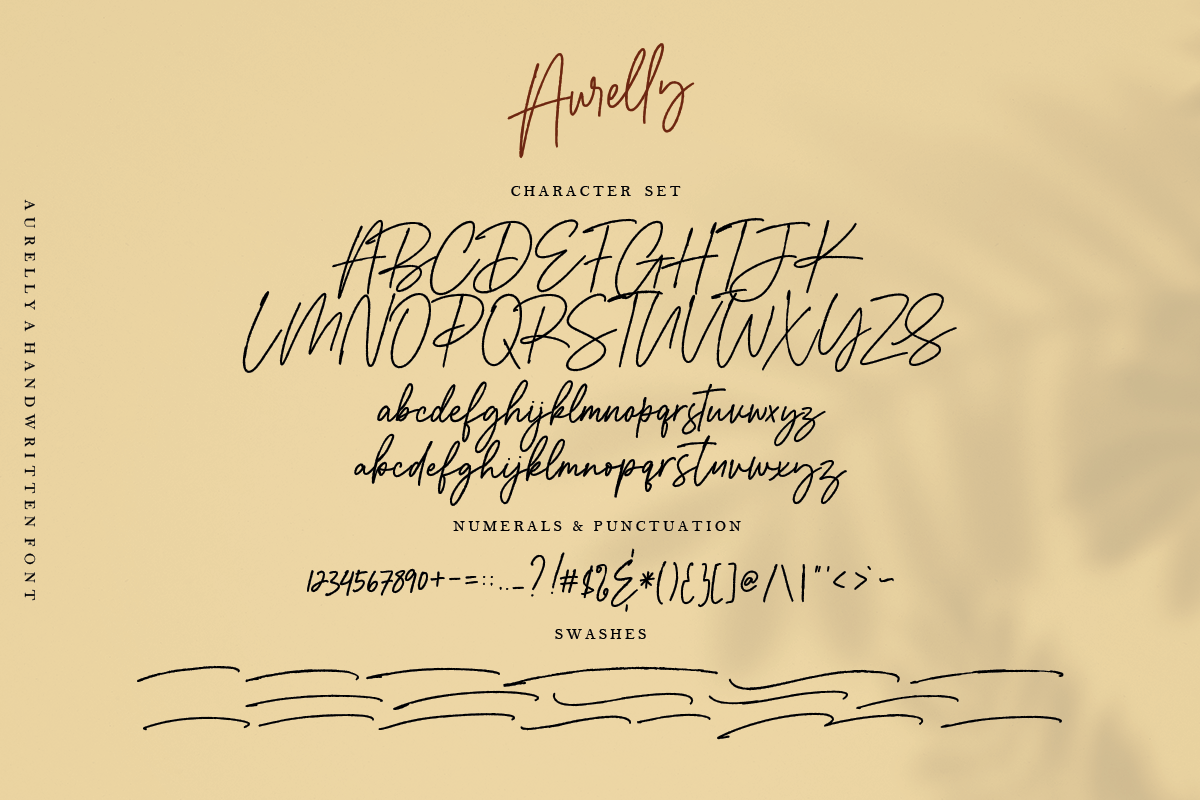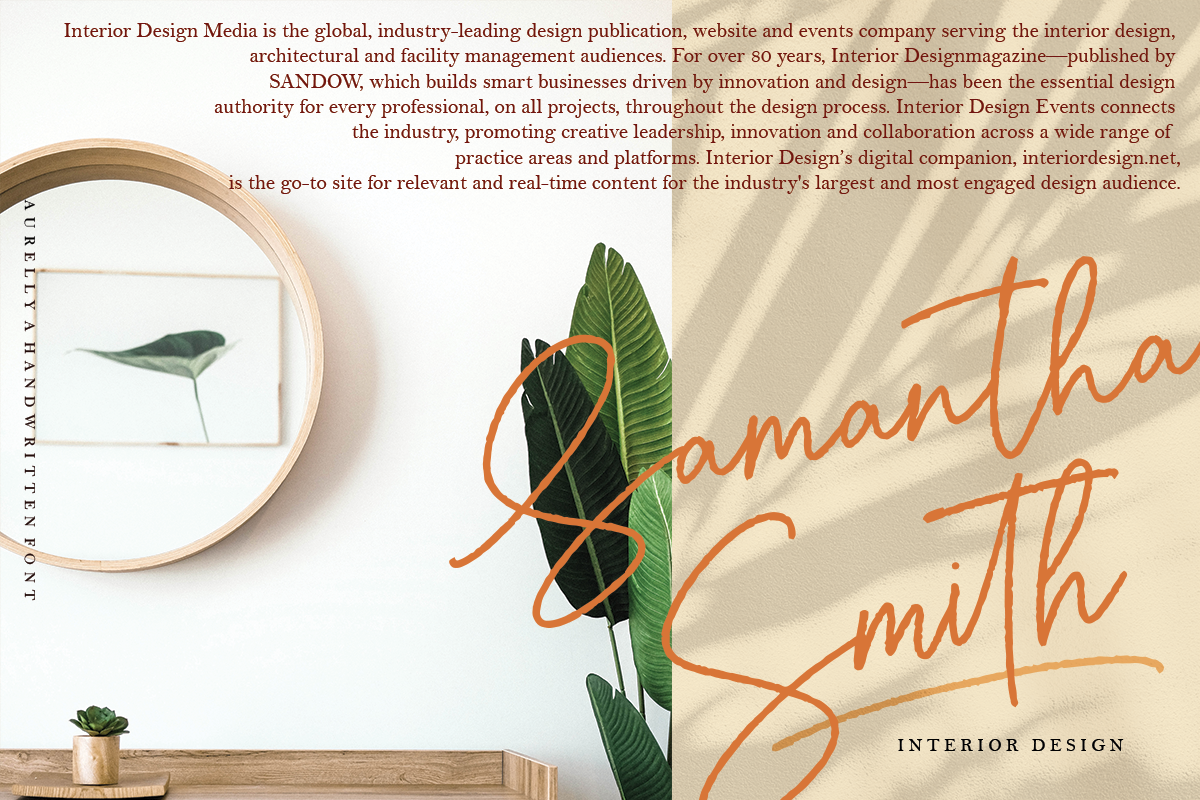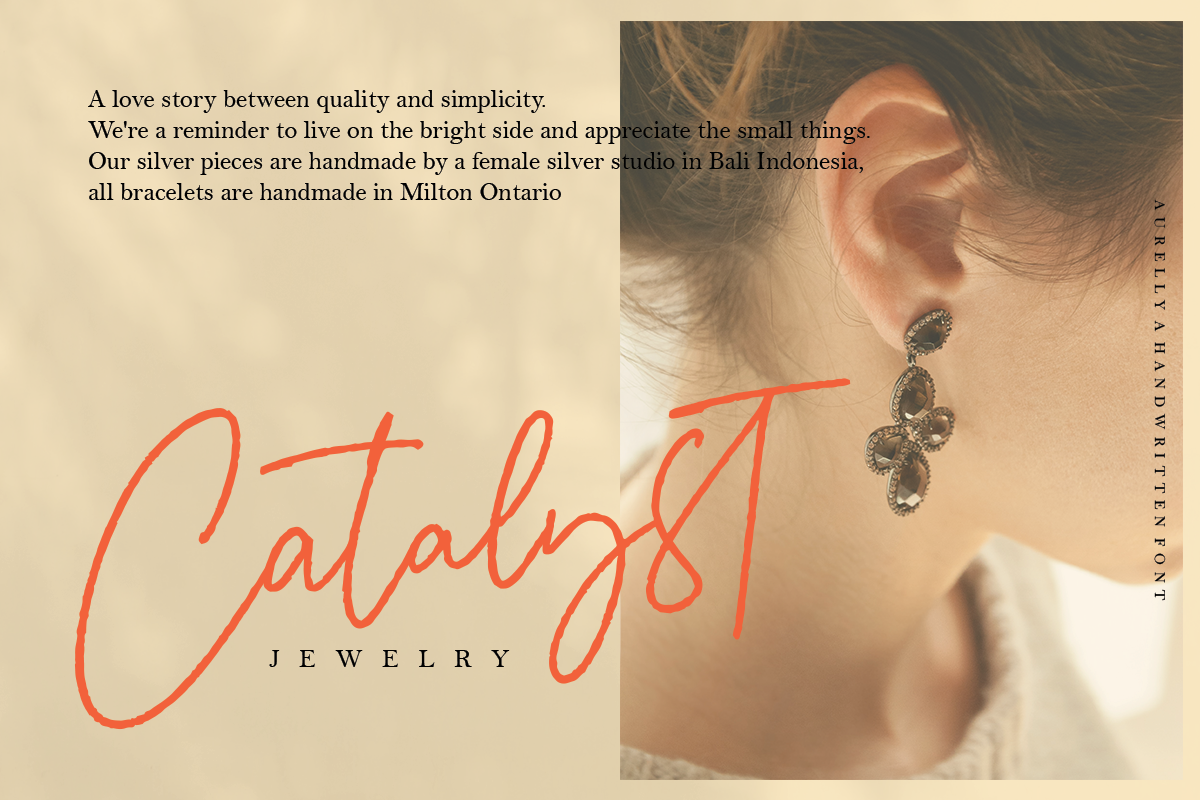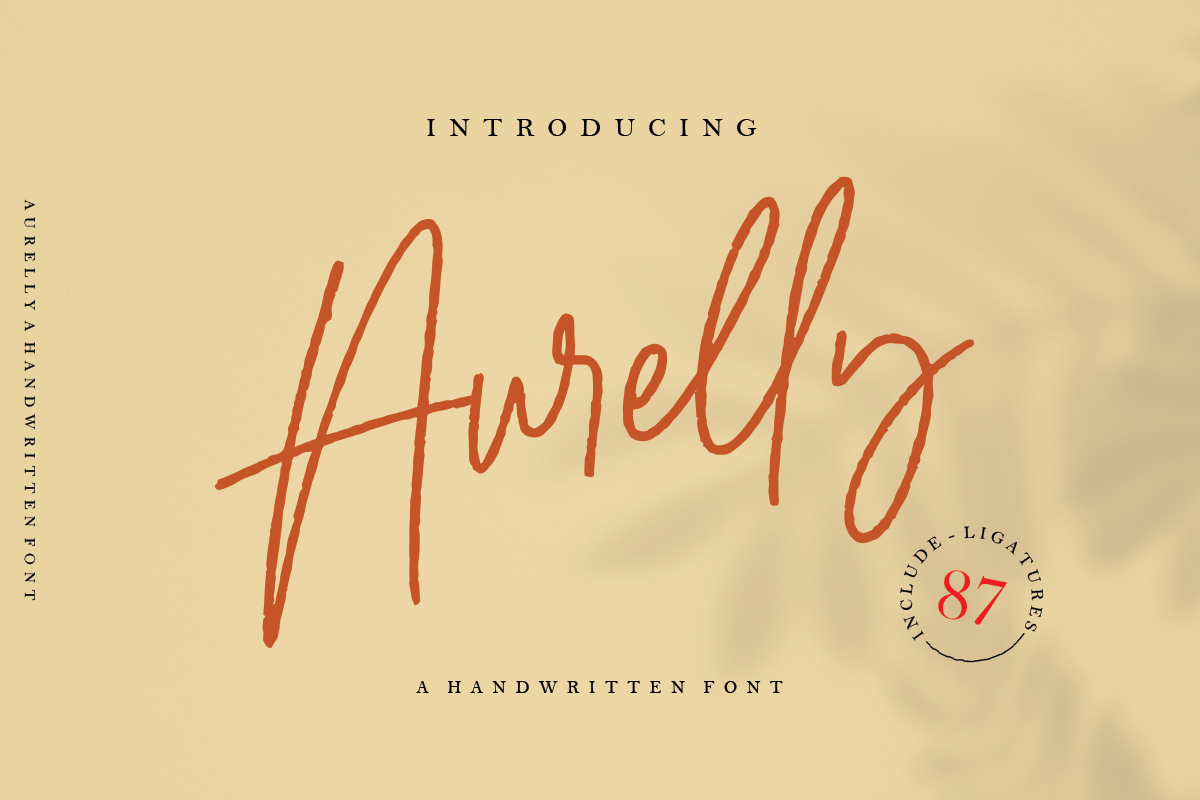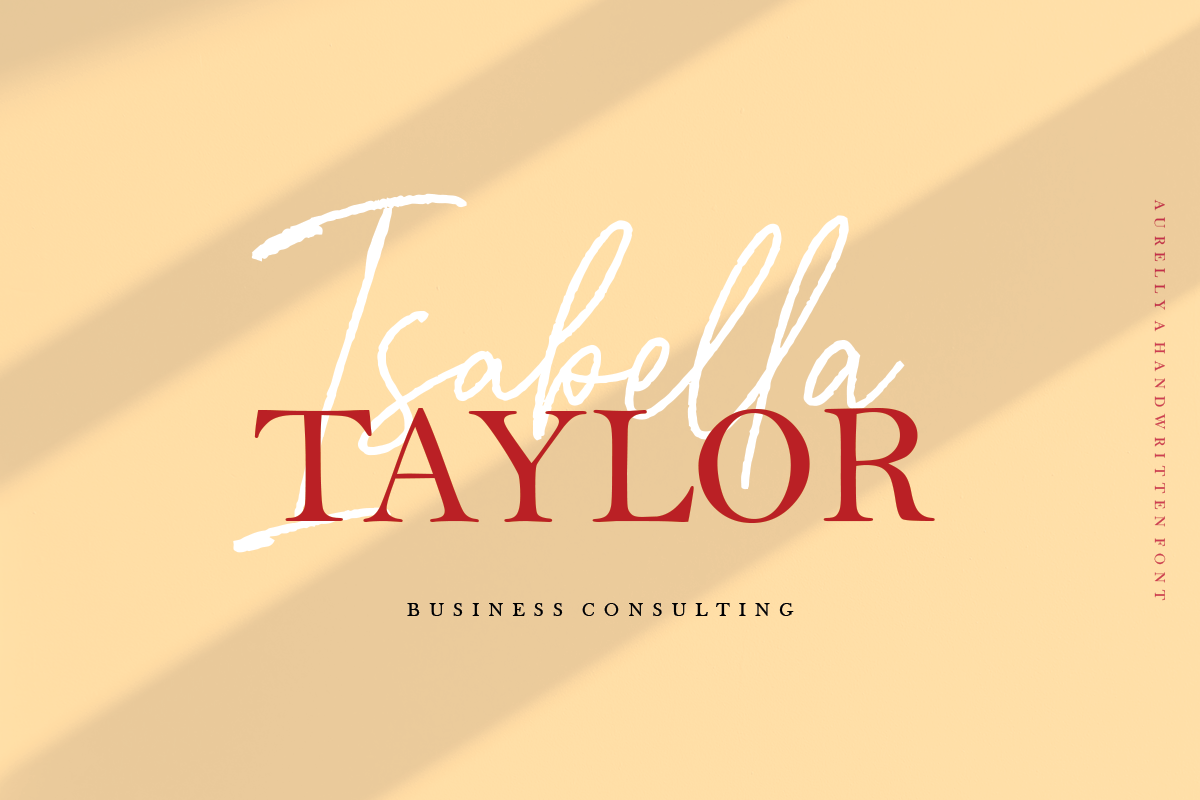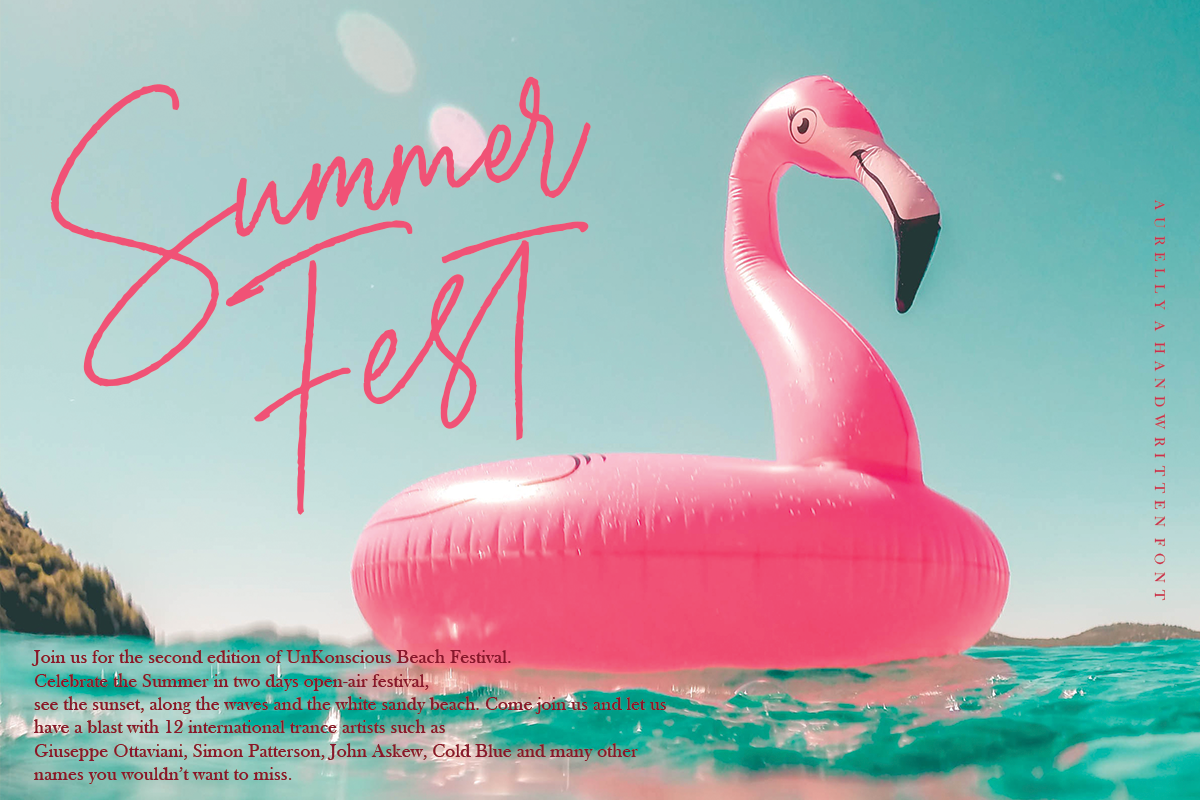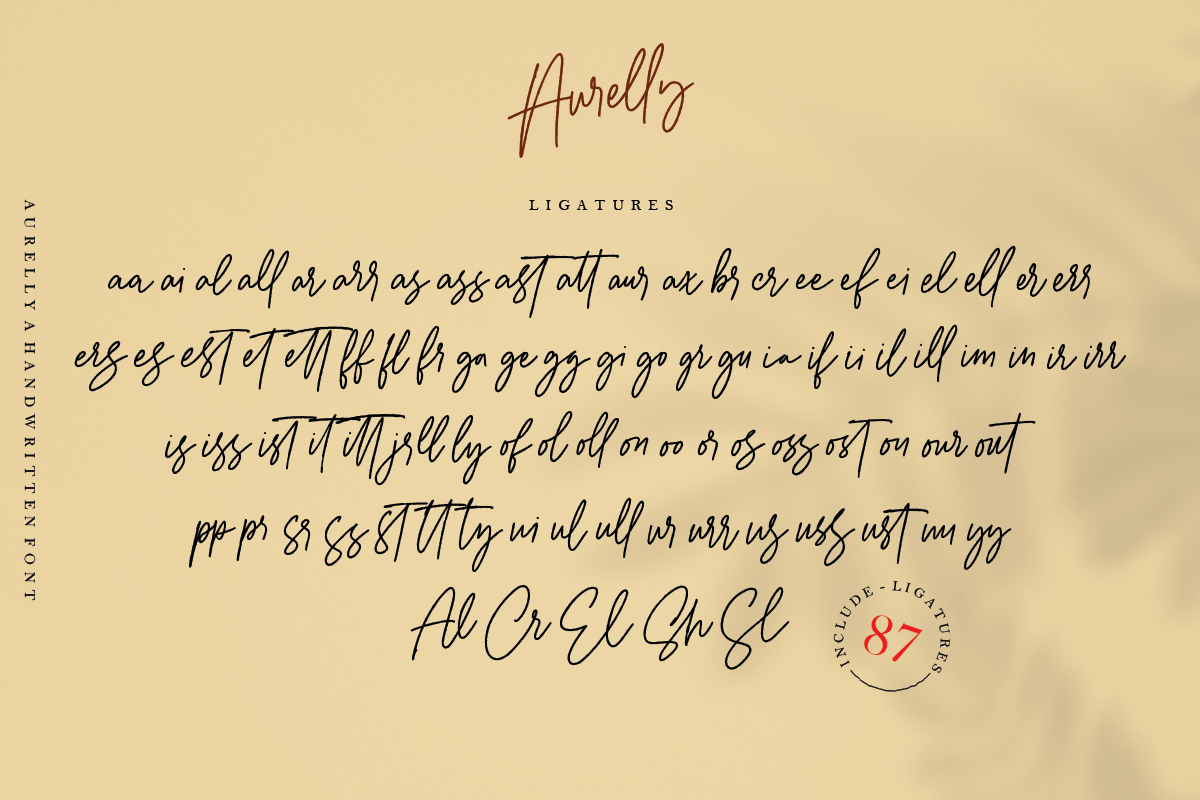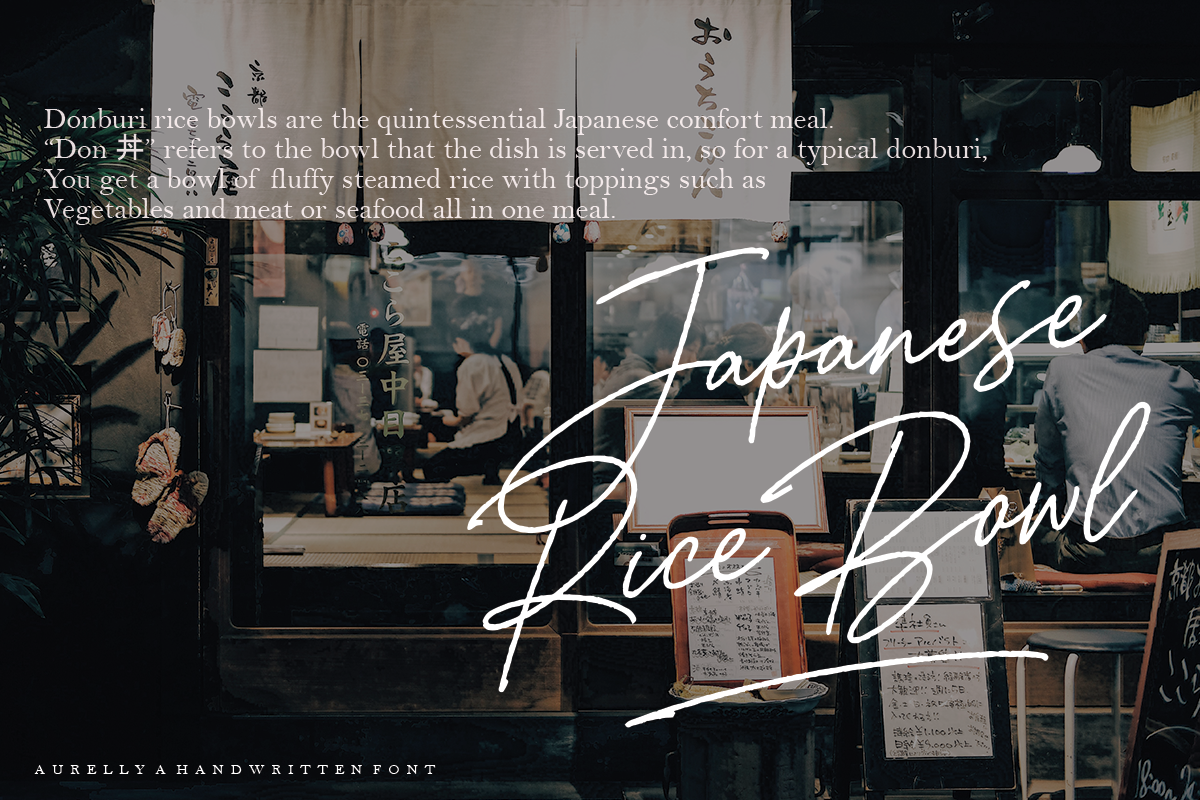
Aurelly Signature
introducing the new Aurelly Signature font is a feminine type Hanwritten with a monoline script texture that you can use to perfect your design.
Aurelly has an additional 2 lowercase types, you can change it as you wish to create a brand, logo, and whatever you want. You can also add font combinations with your PC's default serif types such as BELL MT and BASKERVILLE OLD FACE to add an elegant feel to the aurelly font.
Aurelly also provides 87 types of Ligature that you can use to add design / beauty words that you make, and some swash that you can use to add beauty to your writing.